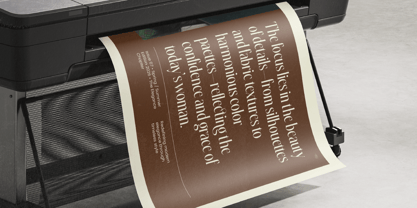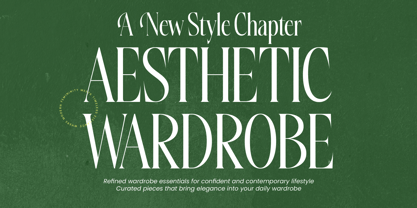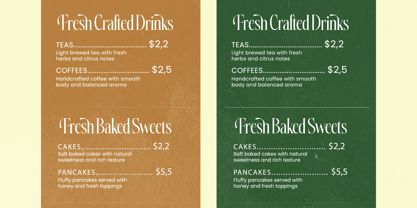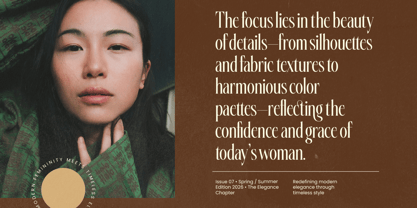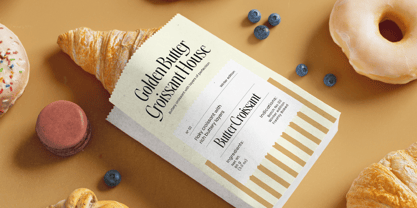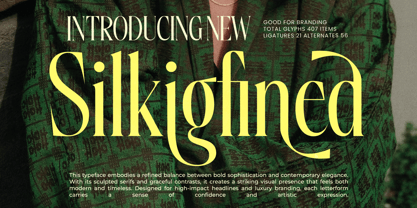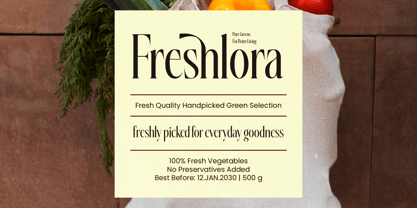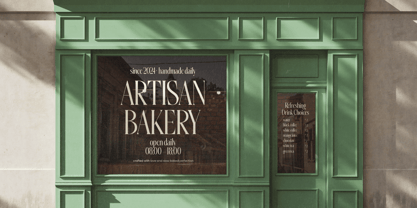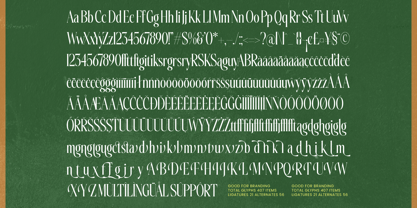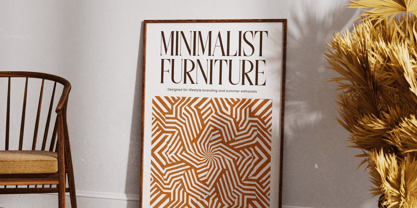
Silkigfined
by Timelesstype Studio
The Silkigfined Font Family was designed by Heru Utama Putra and published by Timelesstype Studio. Silkigfined contains 2 styles and family package options. More about this family
Silkigfined – Elegant Luxury Serif Typeface Silkigfined is a refined serif typeface that blends bold sophistication with contemporary elegance. Designed with sculpted serifs and graceful contrast, this font delivers a striking visual presence while maintaining a timeless, high-end aesthetic. With 407 total glyphs, 21 ligatures, and 56 alternates, Silkigfinedoffers exceptional flexibility for premium design work. Each letterform is carefully crafted to create harmony, confidence, and artistic expression — making it ideal for impactful headlines and upscale branding. Silkigfinedis perfect for designers seeking a luxurious serif that feels modern, polished, and editorial-ready. Its strong character structure ensures clarity at large sizes while retaining delicate details that elevate any composition.